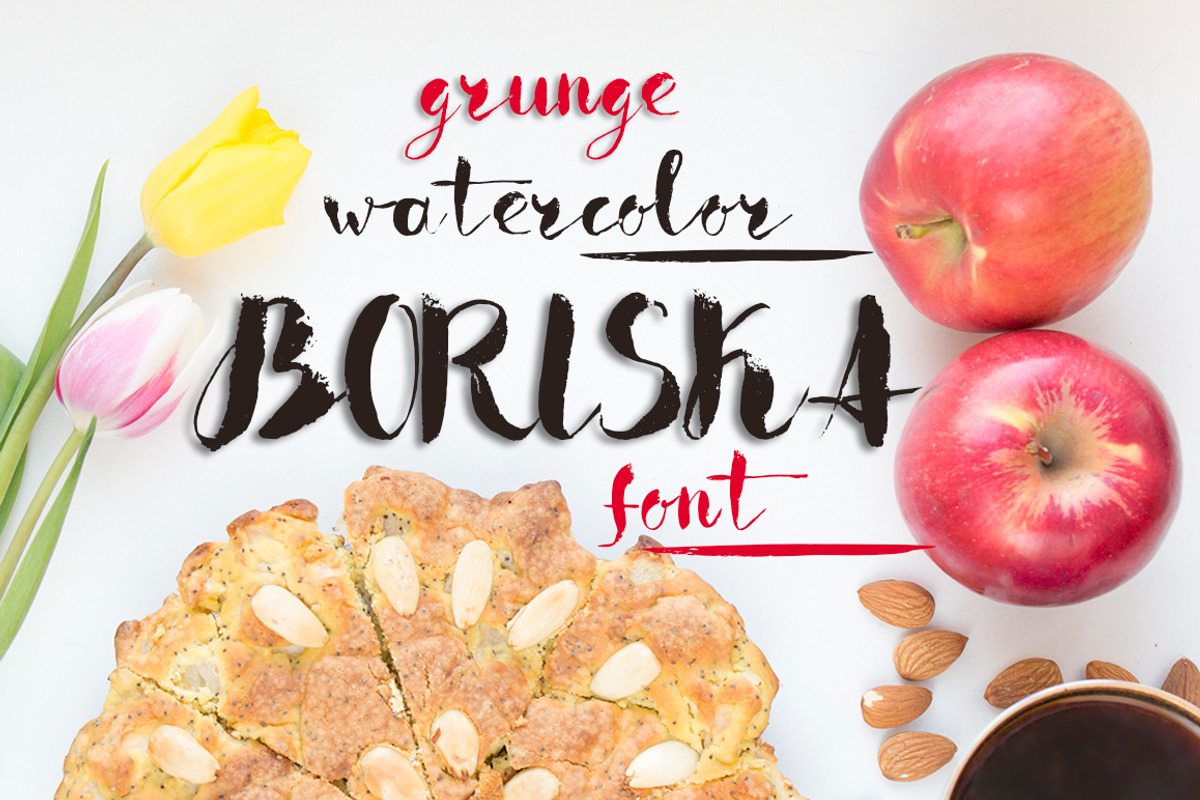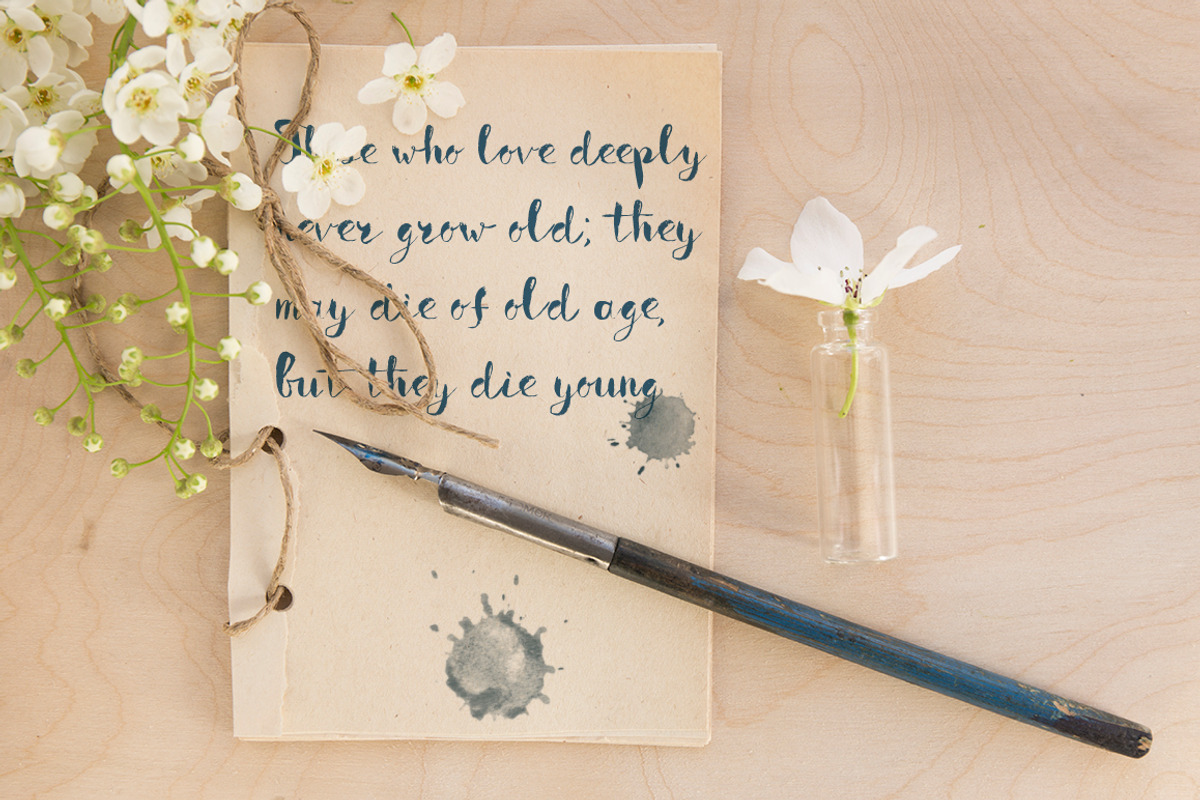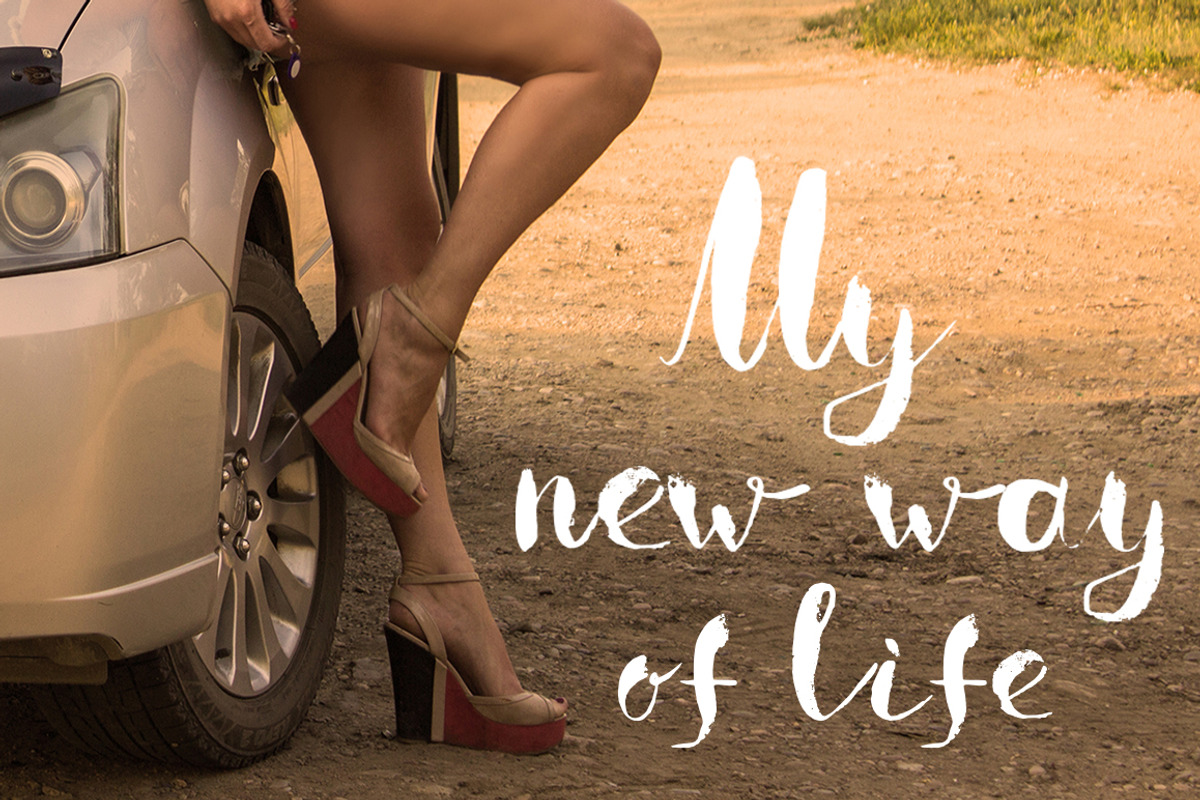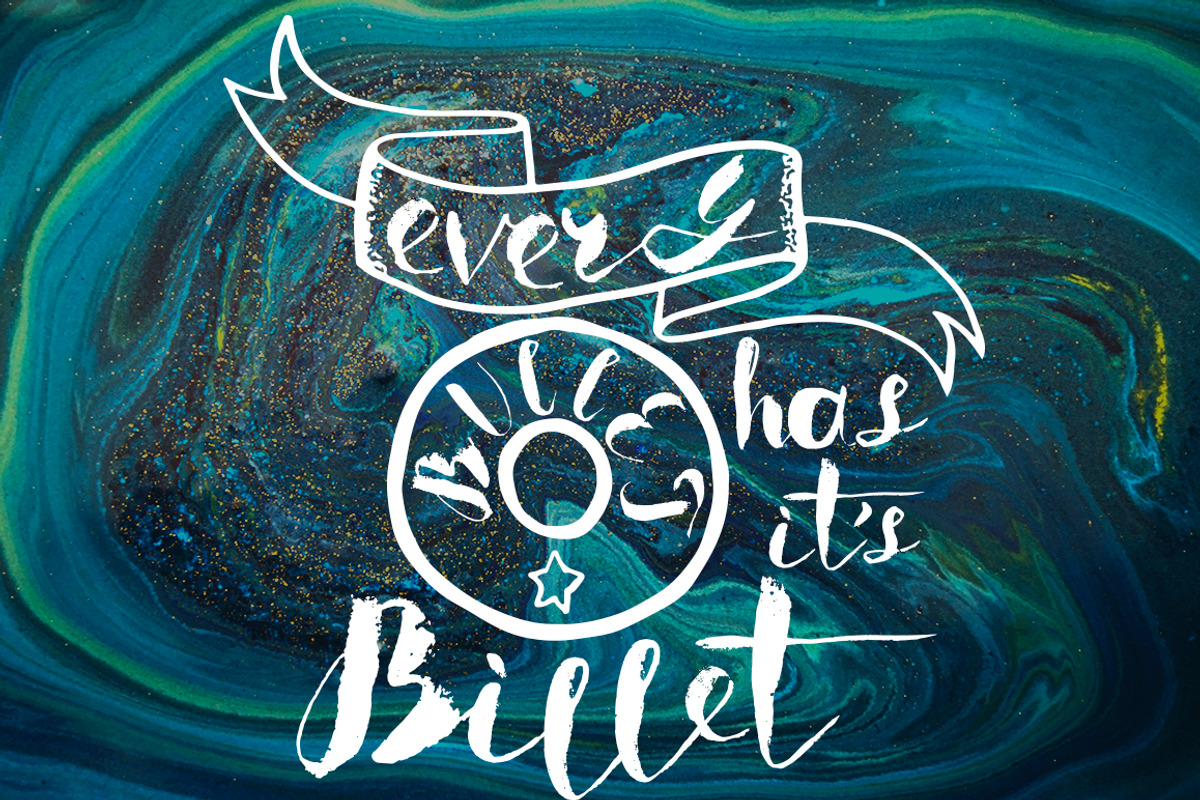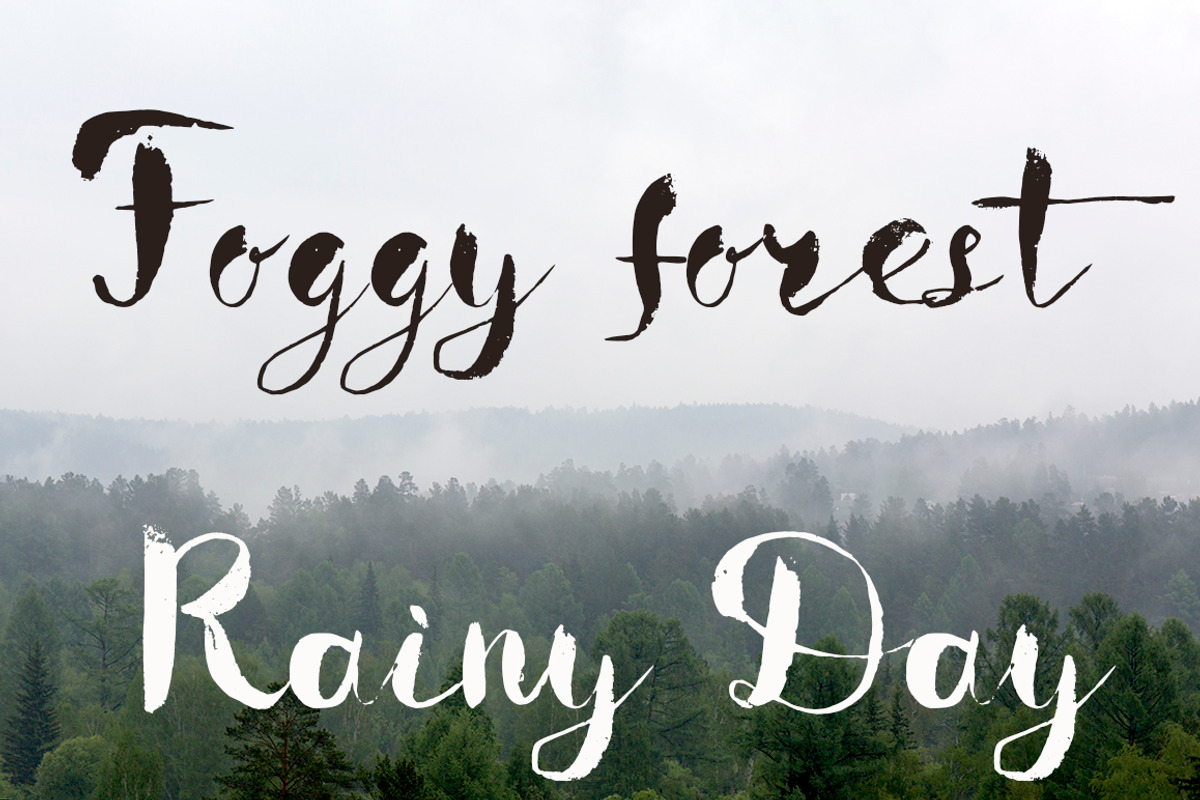
Boriska watercolor grunge font
Boriska watercolor grunge font by Ana Babii is a font selected for branding, posters, packaging, typography.
Why Boriska watercolor grunge font is worth a look
Boriska watercolor grunge font by Ana Babii fits naturally into Branding, posters, packaging, typography.